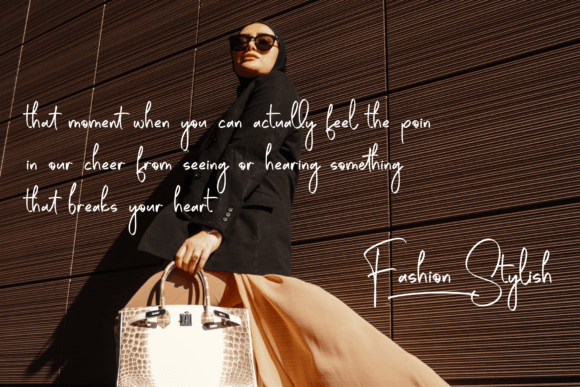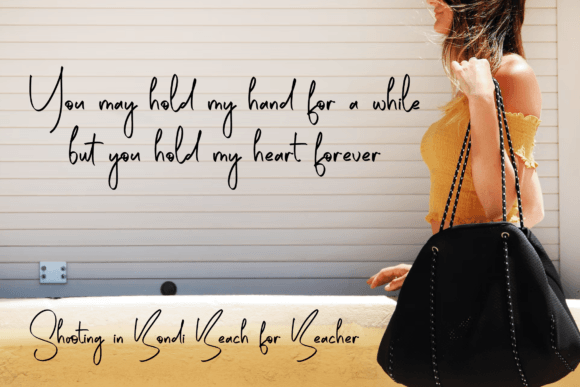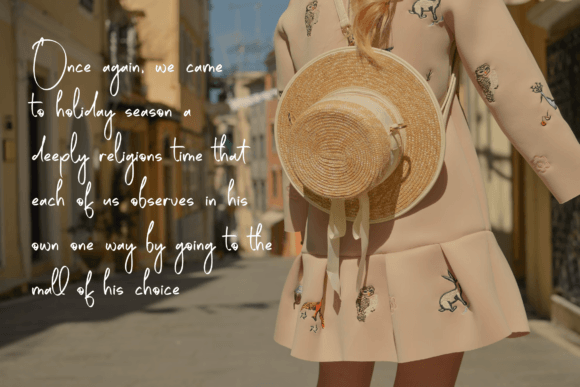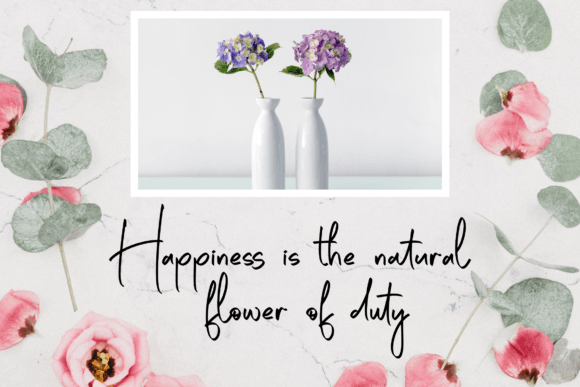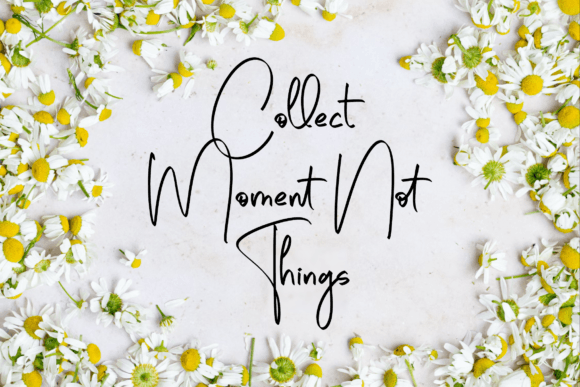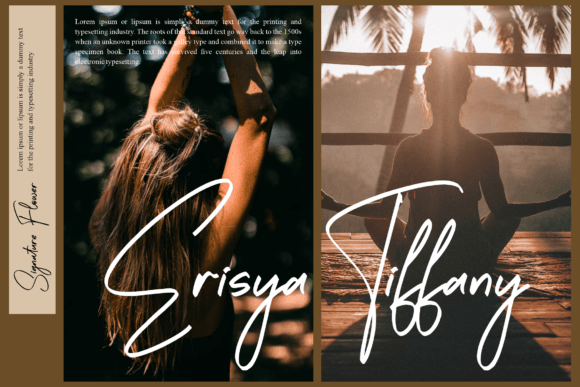
Introducing Andalante Font: The Perfect Handwritten Script for Your Creative Projects
Are you a designer or crafter looking for a beautiful and elegant handwritten font to elevate your projects? Look no further than Andalante Font! This stunning script font is perfect for a wide range of creative endeavors, from logos and branding to homeware designs, product packaging, and more.
What is Andalante Font?
Andalante Font is a carefully crafted handwritten script font that exudes elegance and sophistication. Its flowing lines and delicate curves make it perfect for adding a touch of beauty to any project. Whether you’re working on a logo, a poster, or a product design, Andalante Font is sure to impress.
What Can I Use Andalante Font For?
The versatility of Andalante Font is one of its standout features. This amazing font can be used for a wide range of projects, including:
- Logos and branding projects: Create a lasting impression with a custom logo that showcases your brand’s personality.
- Homeware designs: Add a touch of elegance to your home decor with Andalante Font.
- Product packaging: Make your products stand out on store shelves with beautiful packaging.
- Mugs, quotes, posters, shopping bags, t-shirts, book covers, name cards, invitation cards, greeting cards, labels, and more!
- Photography: Use Andalante Font as a watermark or overlay to add a touch of sophistication to your photos.
- Special events: Create stunning invitations, programs, and other materials for weddings, parties, and other events.
Why Choose Andalante Font?
So why should you choose Andalante Font for your next project? Here are just a few reasons:
- Unique and elegant design: Andalante Font is a one-of-a-kind script font that will set your projects apart from the rest.
- High-quality and versatile: This font is perfect for a wide range of projects, from digital designs to print materials.
- Beautiful script taste: Add a touch of sophistication and elegance to your projects with Andalante Font’s beautiful script.
Tips for Using Andalante Font
To get the most out of Andalante Font, here are a few tips to keep in mind:
- Experiment with different sizes and colors: Find the perfect combination to make your project stand out.
- Pair with other fonts: Combine Andalante Font with other fonts to create a unique and eye-catching design.
- Use it sparingly: Don’t be afraid to use Andalante Font sparingly to add a touch of elegance to your design.
Andalante Font is a stunning handwritten script font that’s perfect for designers and crafters looking to add a touch of elegance to their projects. With its unique and elegant design, high-quality and versatility, and ease of use, Andalante Font is the perfect choice for a wide range of creative endeavors. So why wait? Download Andalante Font today and start creating beautiful projects that showcase your creativity and style!
Whether you’re a seasoned designer or a crafter just starting out, Andalante Font is sure to become a favorite in your toolkit. So go ahead, get creative, and see what amazing projects you can create with Andalante Font!